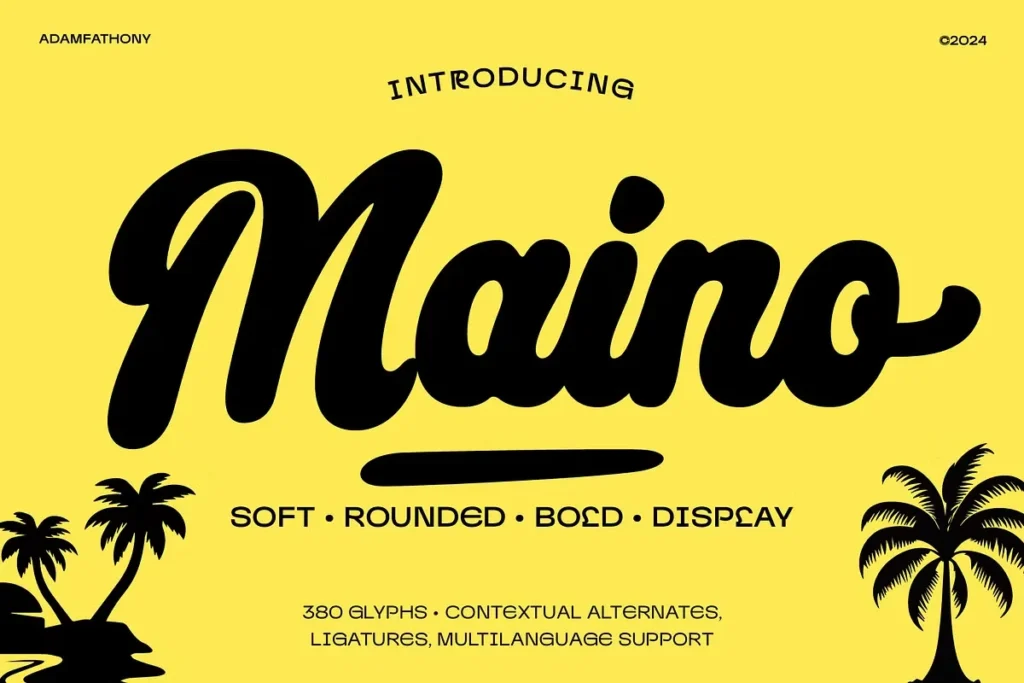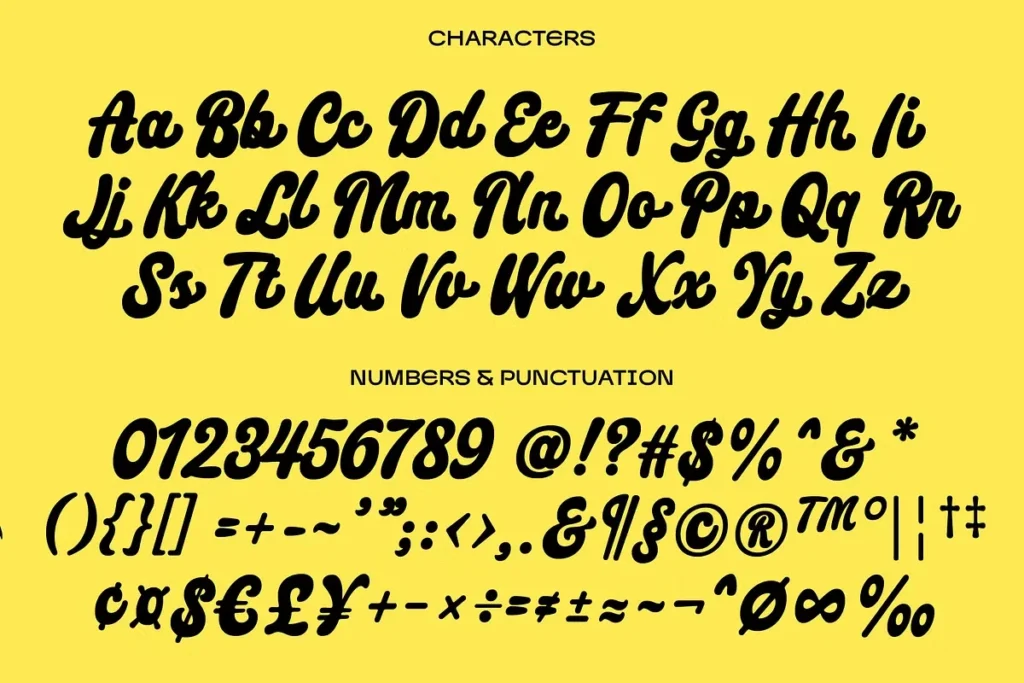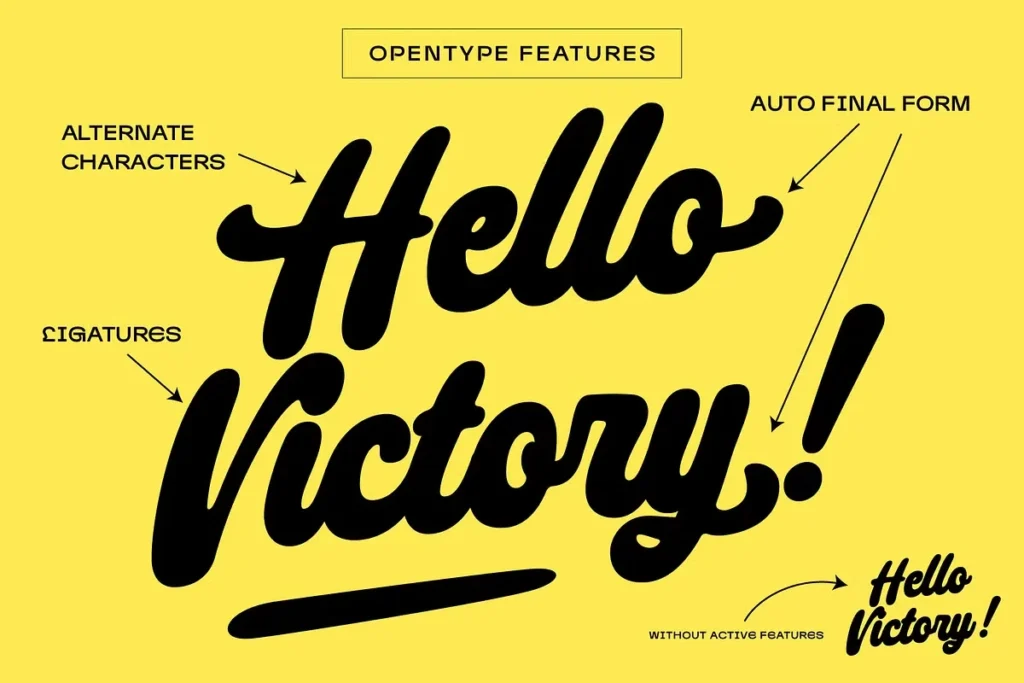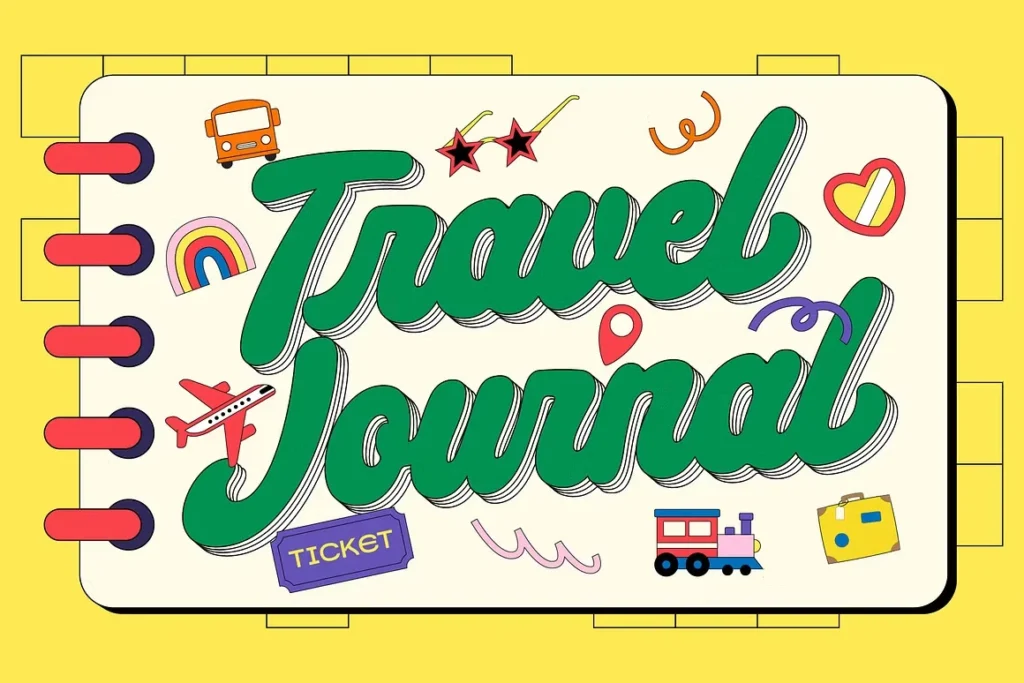
About Maino Font
I just used Maino Font in a new branding project, and it worked better than I expected. I’m a typographer and graphic designer, always on the hunt for something that feels personal but polished.
I came across Maino while browsing YouWorkForThem. It instantly gave me that perfect mix of soft and bold, which I needed for a handmade product line. I used it across the packaging, social templates, and even a brand video. Every time, it held its own. That’s why I had to share my thoughts on it. Fonts like this don’t come around often.
Introducing Maino Script Font by Adam Fathony
Maino Font is a handwritten-style script font created by Adam Fathony, a known name in the font world for expressive and elegant designs. If you’re looking for a font that mixes charm with professionalism, this one does it right. Maino script font is soft, casual, and full of personality. Each stroke feels like it was drawn with care, giving every letter its own character.
It has rounded edges that add a friendly feel to the overall design. You won’t find harsh lines here. The shapes are smooth and natural. It flows beautifully in any text setup. Whether you’re using it for a fun brand, a lifestyle product, or anything that calls for warmth, Maino script brings a calm, creative tone.
Features of the Maino Font
Maino is packed with thoughtful features that give it real flexibility. It comes with OpenType options like ligatures, contextual alternates, and extra characters. These features let you create smooth, flowing text with zero effort. Everything feels handwritten without being hard to read.
Its rounded edges soften the tone, giving your layout that polished but cozy vibe. Perfect for creators who seek a design that shows emotion without losing clarity. The strokes are clean but never too stiff, which adds to its charm. It’s a casual script, ideal for brands, blogs, or products that need to feel real and relatable.
Maino Font supports multiple languages, making it ready for global use. You can use it for social media posts, product packaging, or print work with confidence. It adapts easily, whether you’re creating short quotes or long sentences. It shines in logos, adds warmth to headlines, and blends well in creative brand kits.
Every curve in this font has a purpose. Each letter flows into the next with balance. If you’re someone who loves fonts that bring a story into your craft, then meet Maino. It’s made for thoughtful design work and projects with heart.
Maino Font is perfect for any creative project that needs a personal touch. Use it in branding, product packaging, social banners, or handwritten notes. It’s especially strong for designs that focus on warmth, personality, or charm.
This font fits well in lifestyle brands, handmade goods, feminine-focused logos, and more. If you design for weddings, beauty products, or custom prints, Maino gives that friendly feel your audience connects with. It also works great for social media graphics, blog headers, or even signature-style text.
Looking to make something that feels thoughtful? This font is ideal for creators, bloggers, or small businesses who want more than just clean type. Maino blends in with similar fonts but stands out with its extra flair. Whether you’re pairing it with a clean serif or using it solo, it holds its weight.